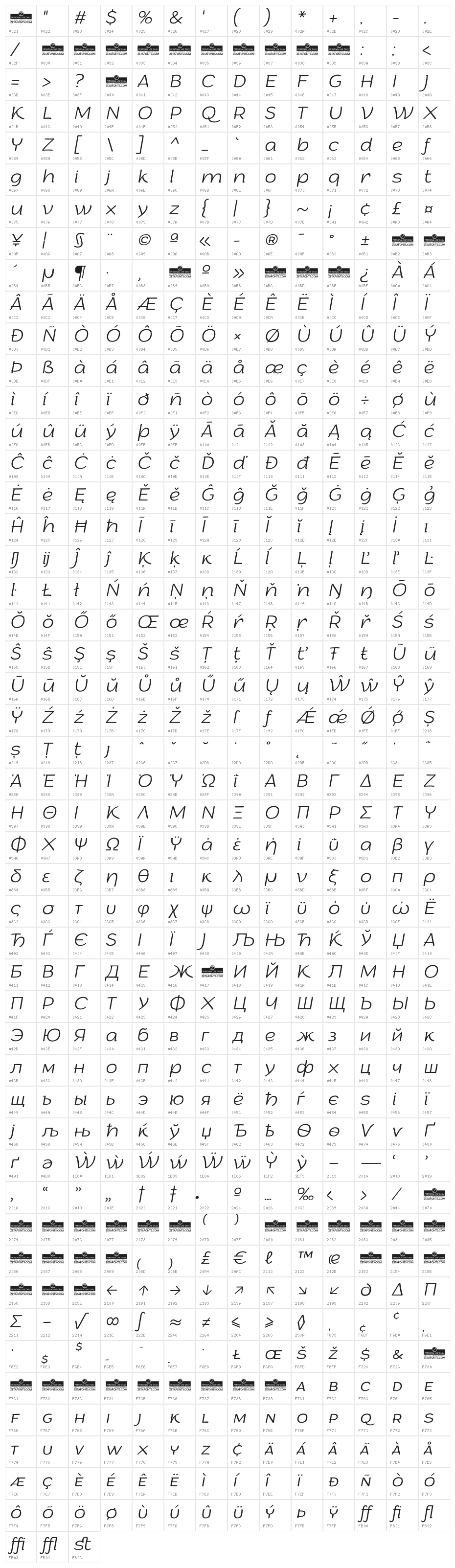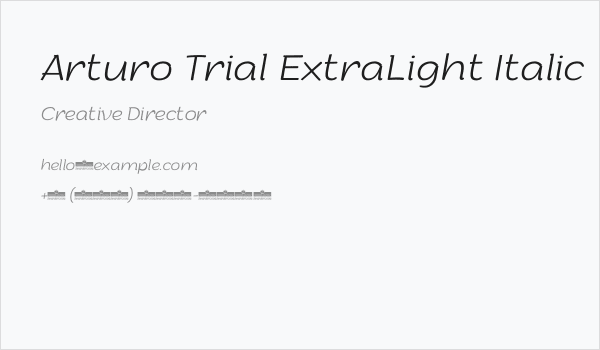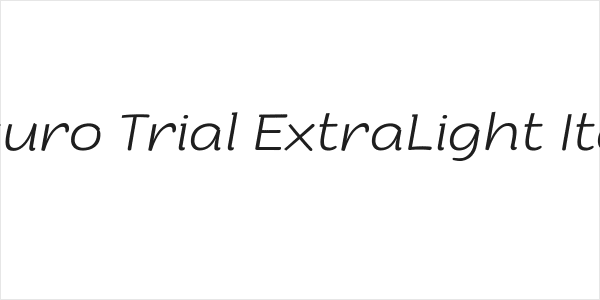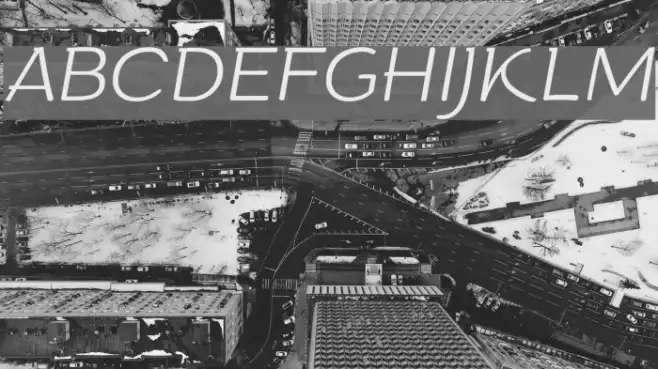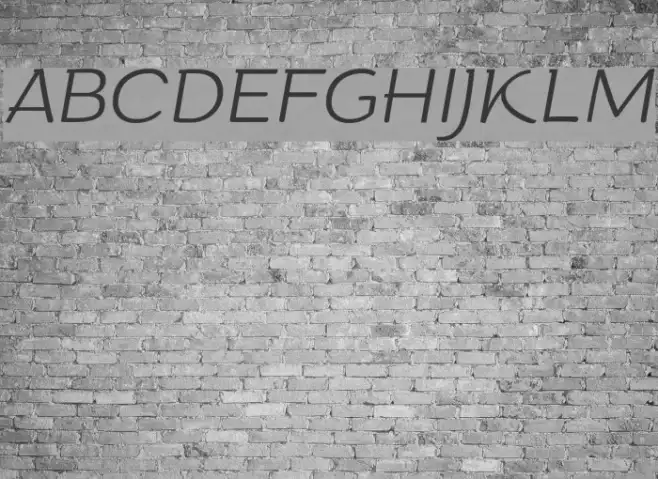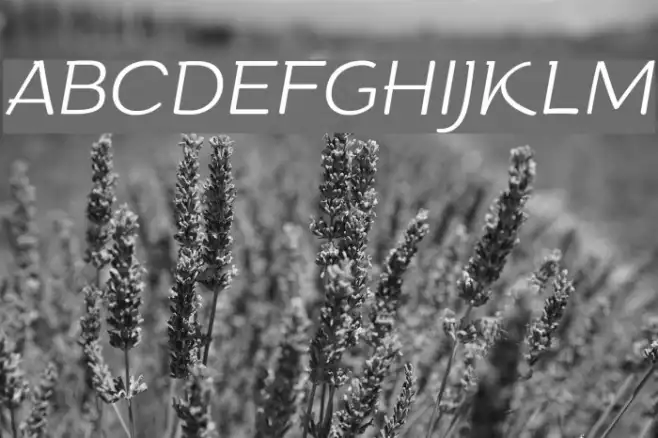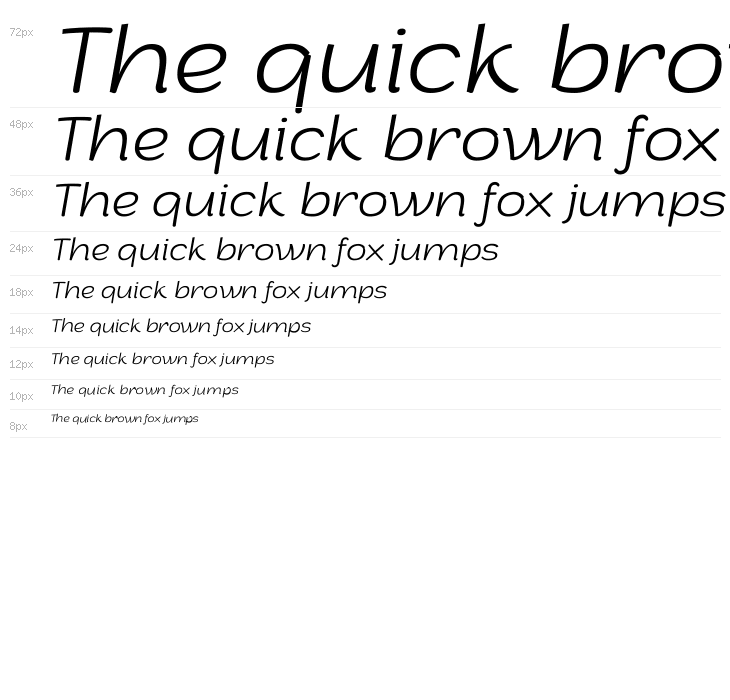
Arturo Trial ExtraLight Italic Font
Arturo Trial ExtraLight Italic Description
This font features a sleek and elegant design with a distinct italic slant, giving it a dynamic and sophisticated appearance. The characters are crafted with an extra light weight, providing a delicate and airy feel. The strokes are smooth and fluid, enhancing readability while maintaining a stylish aesthetic. The overall design is modern yet timeless, making it versatile for various applications. The spacing between characters is balanced, ensuring clarity and legibility.
| Proposed Projects | Ideal for fashion magazines, elegant branding, wedding invitations, and high-end product packaging. |